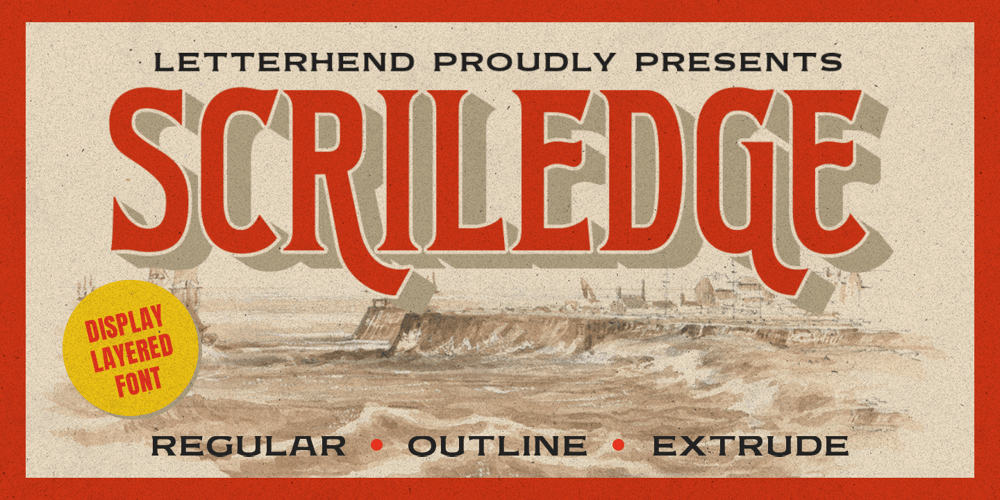
The Scriledge Face Font Family was designed by Hendry Juanda and published by Letterhend. The Scriledge Face contains 3 styles and family package options. The Scriledge is a display font with 3 layered style. You can create vintage 3D look without using any add-on, only with fonts! This font is suitable for a vintage poster, 3d type, or retro Including number and punctuation, also support multi language. This font also contain a bunch of alternates!Features : Uppercase & lowercase Numbers and punctuation Alternates & Ligatures Multilingual Support PUA encoded